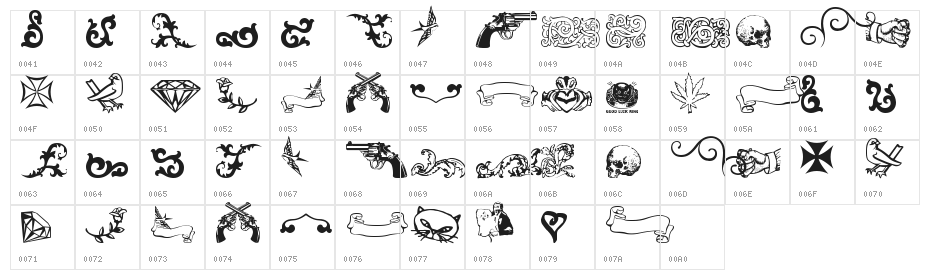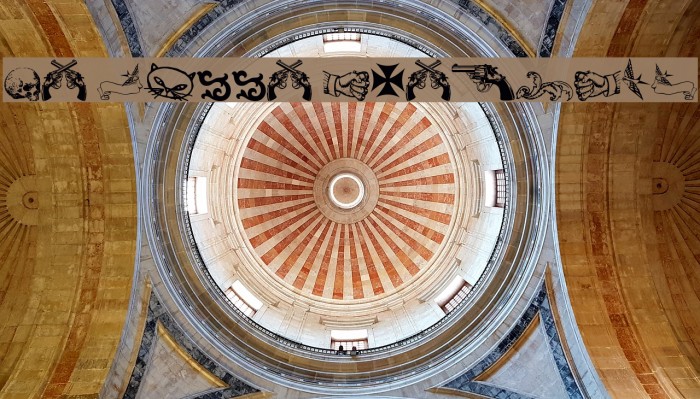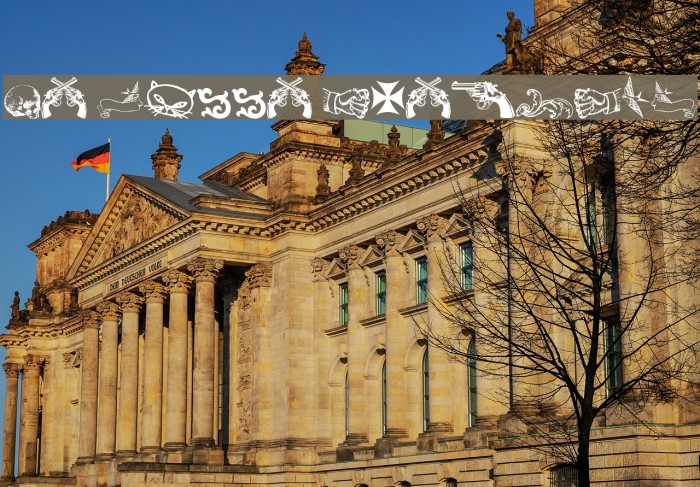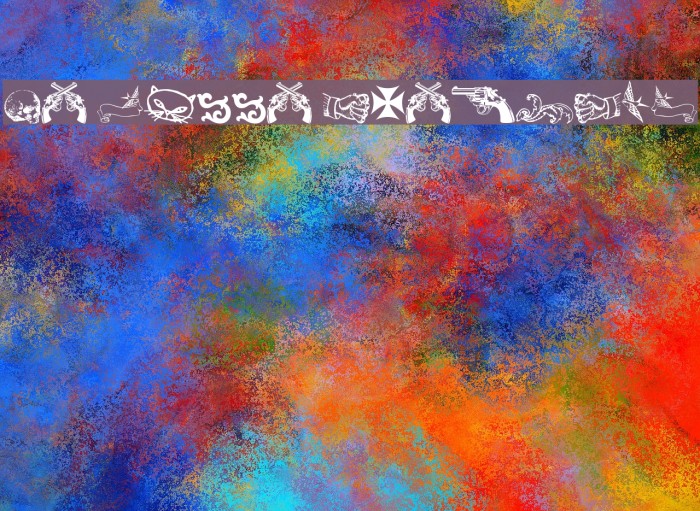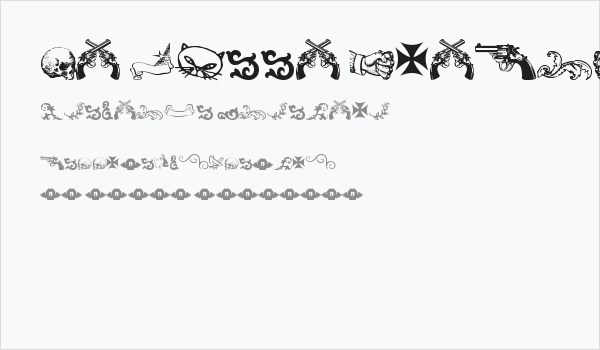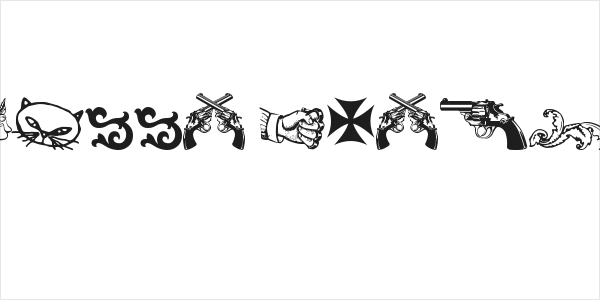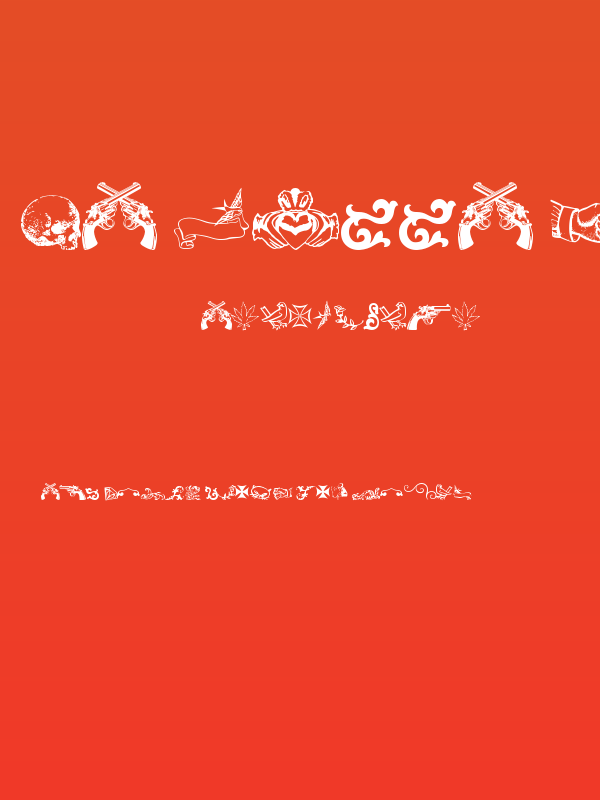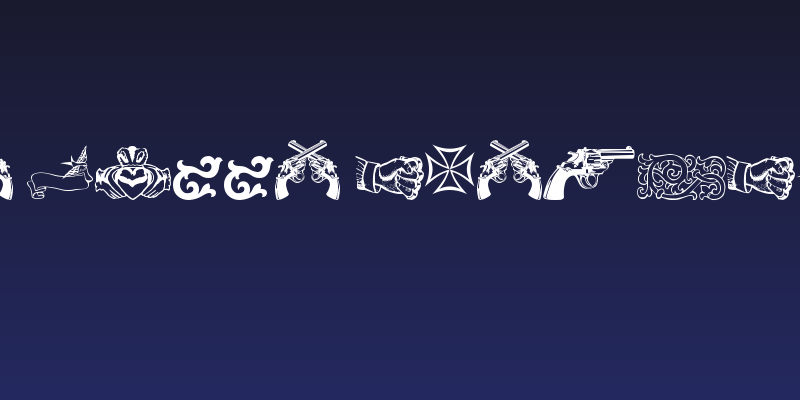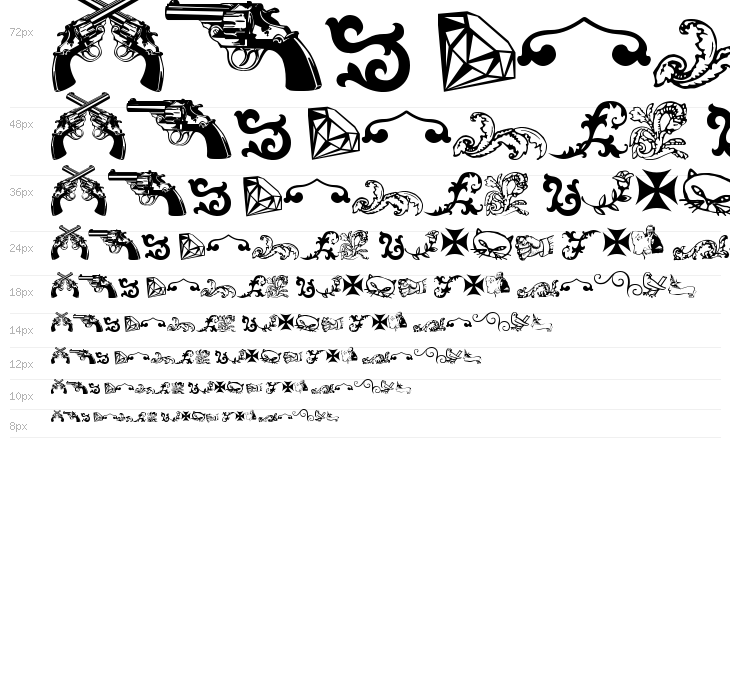
LT Sweet Nothings Font
LT Sweet Nothings Description
This design is a collection of decorative elements rather than a traditional font. It features a variety of intricate and ornate symbols, including floral motifs, scrolls, and vintage-style illustrations like guns, skulls, and birds. The elements are highly detailed, with a mix of classic and edgy themes. These designs are more suited for embellishing projects rather than conveying textual information. The style is eclectic, combining elements of vintage tattoo art with decorative flourishes.
| Overall Style | Decorative, Vintage |
| Use Case | Decorative elements for graphic design, not suitable for body text. |
| Proposed Projects | Ideal for use in graphic design projects that require decorative borders or embellishments, such as posters, invitations, or tattoo designs. |